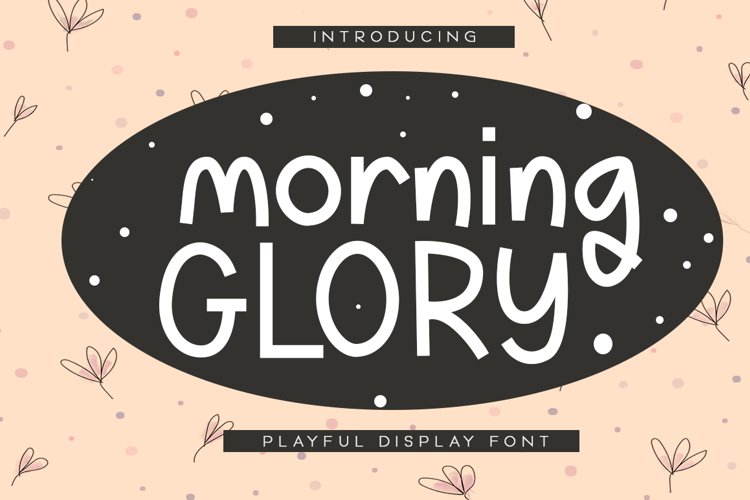
Morning Glory
Morning Glory Regular
Morning Glory Italic
Morning Glory is a fun and quirky handwritten font with a unique style, playful look & feel! embodies fun.Enjoy this font and make more beautiful your product.